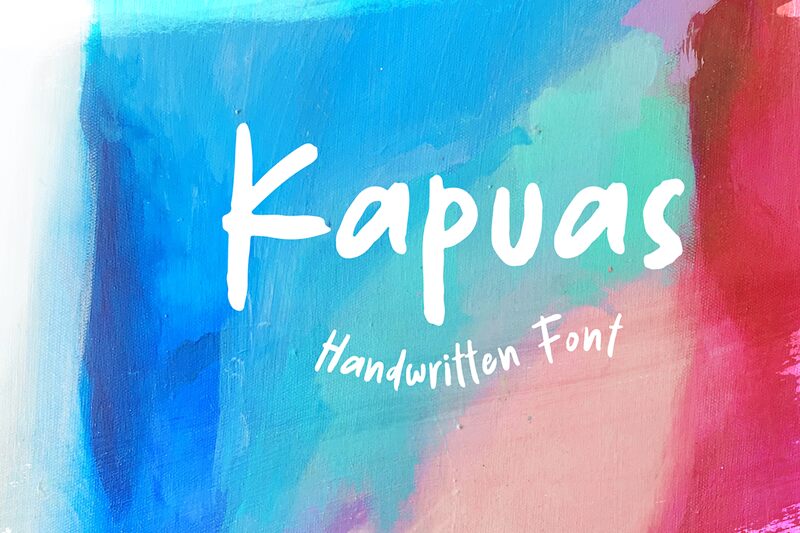
Kapuas
Kapuas font by Weape Studio is a free brush font that captures the spontaneity and casual feel of handwritten work. Its organic texture and modern aesthetic give it a natural appearance to deliver an authentic style to your designs.
Use it with posters, brochures, and signage designs but focus on readability first. Its uses are extended to stationery, invitations, greeting cards, logos, branding projects, packaging goods, etc.